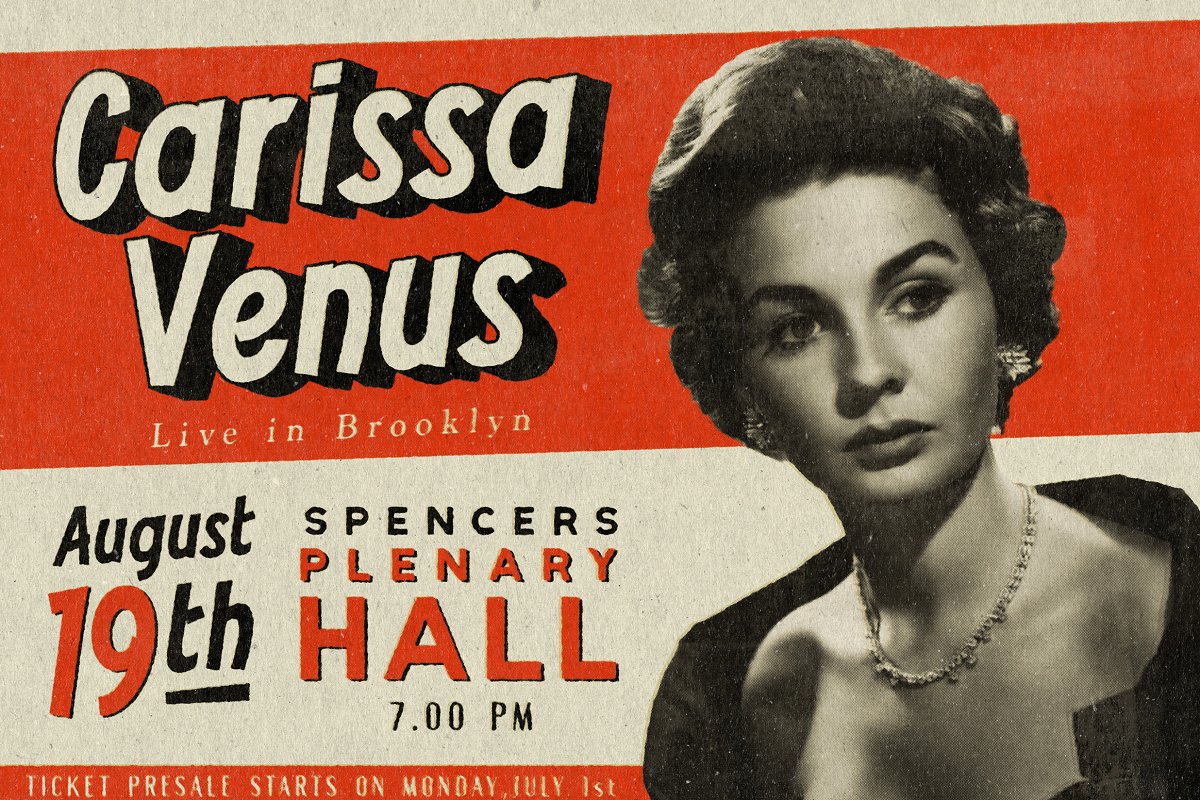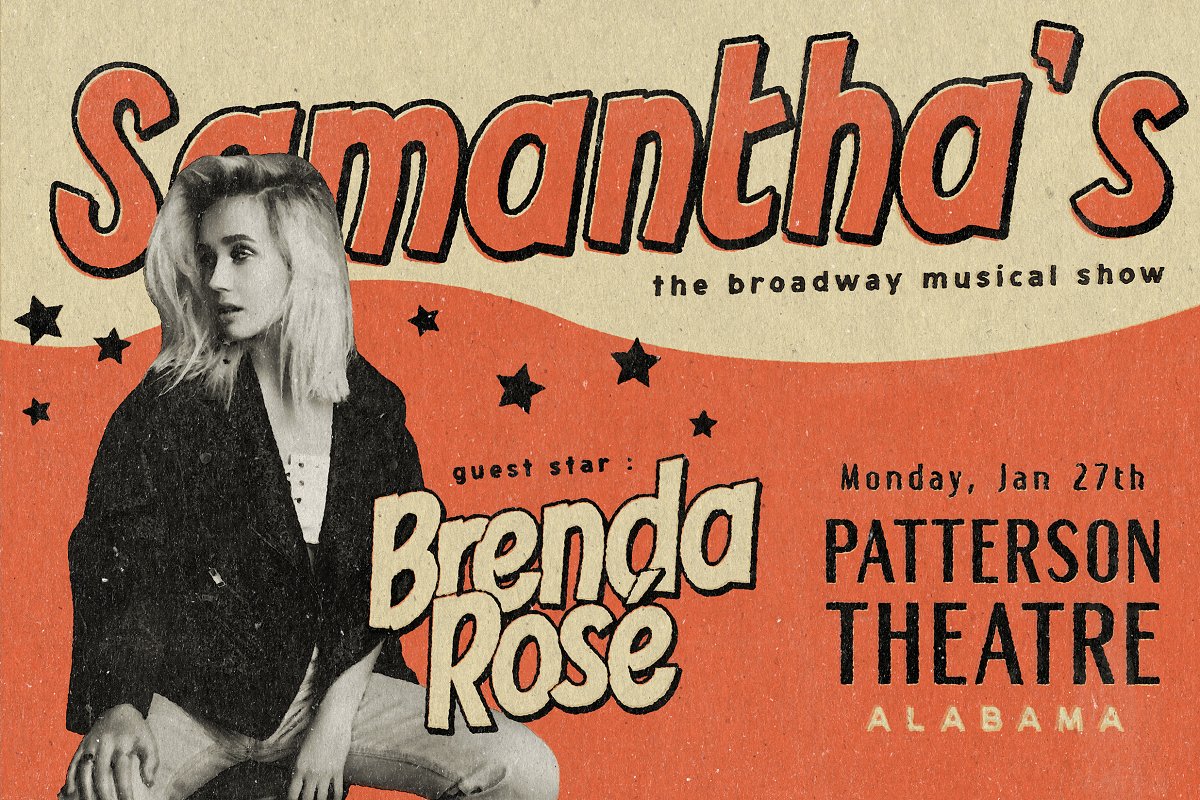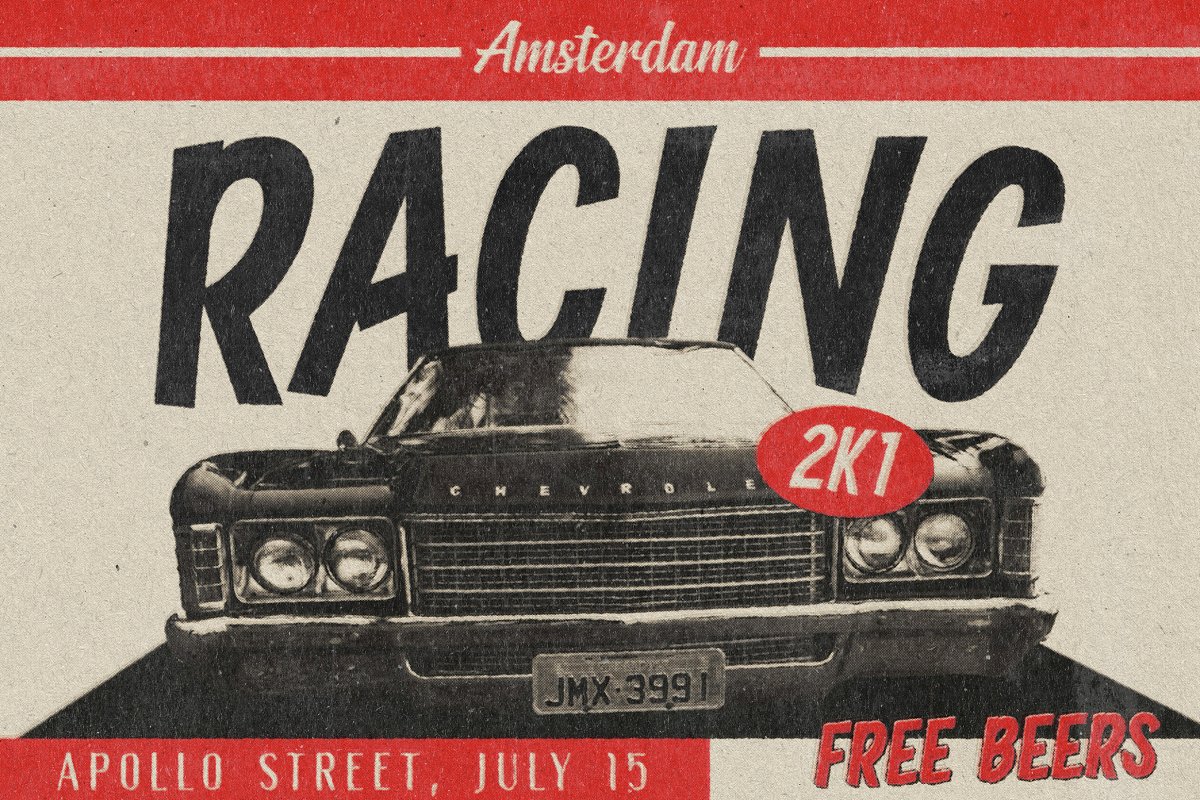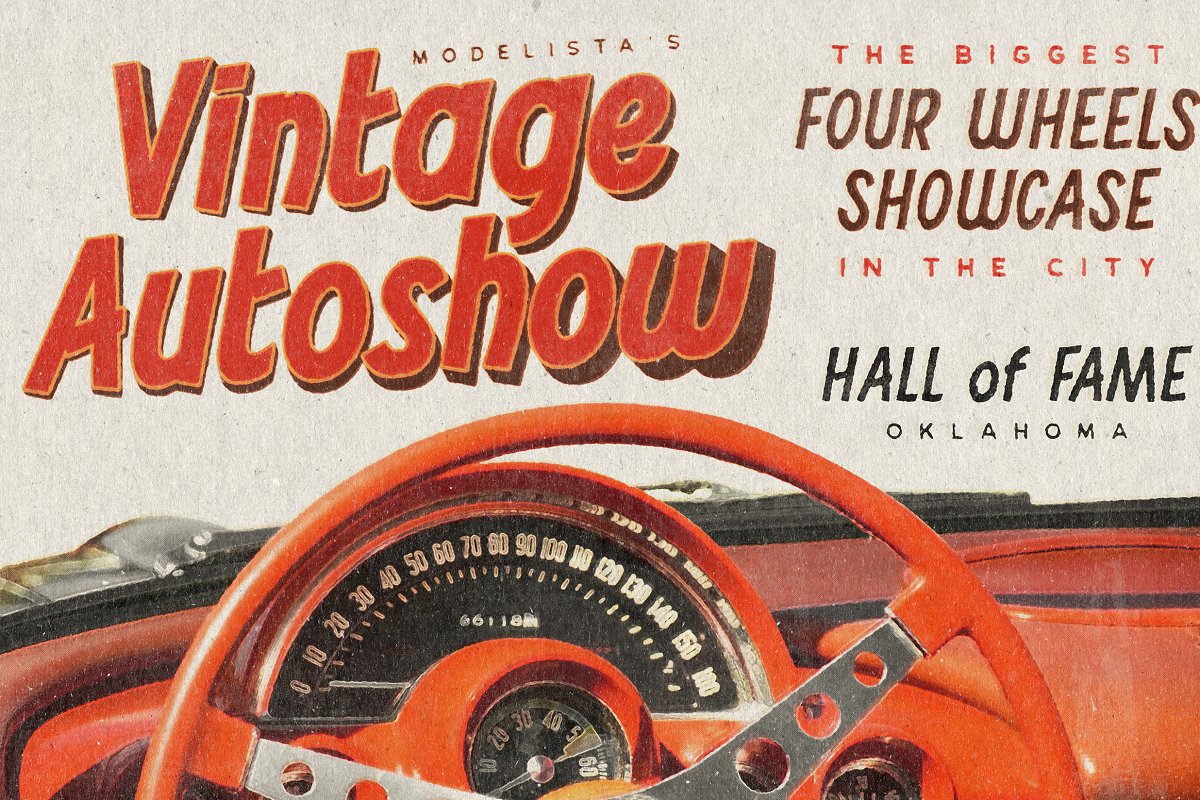
About the Kehlin Vintage Casual Font
Please welcome, KEHLIN!, a time machine font for you to get back to those magnificent era for the sake of old retro and vintage stuff, Perfectly fit for your headline content, logo, branding, posters, anytime – anything, oldsport :)F E A T U R E SMultilanguage Support ( Check out the display image for the details), Available in OTF and TTF files, Webfonts AvailablePERSONAL AND COMMERCIAL USE IS ALLOWED, Commercial use is allowed with all fonts on Creative Market – just be sure to read any restrictions here : https://creativemarket